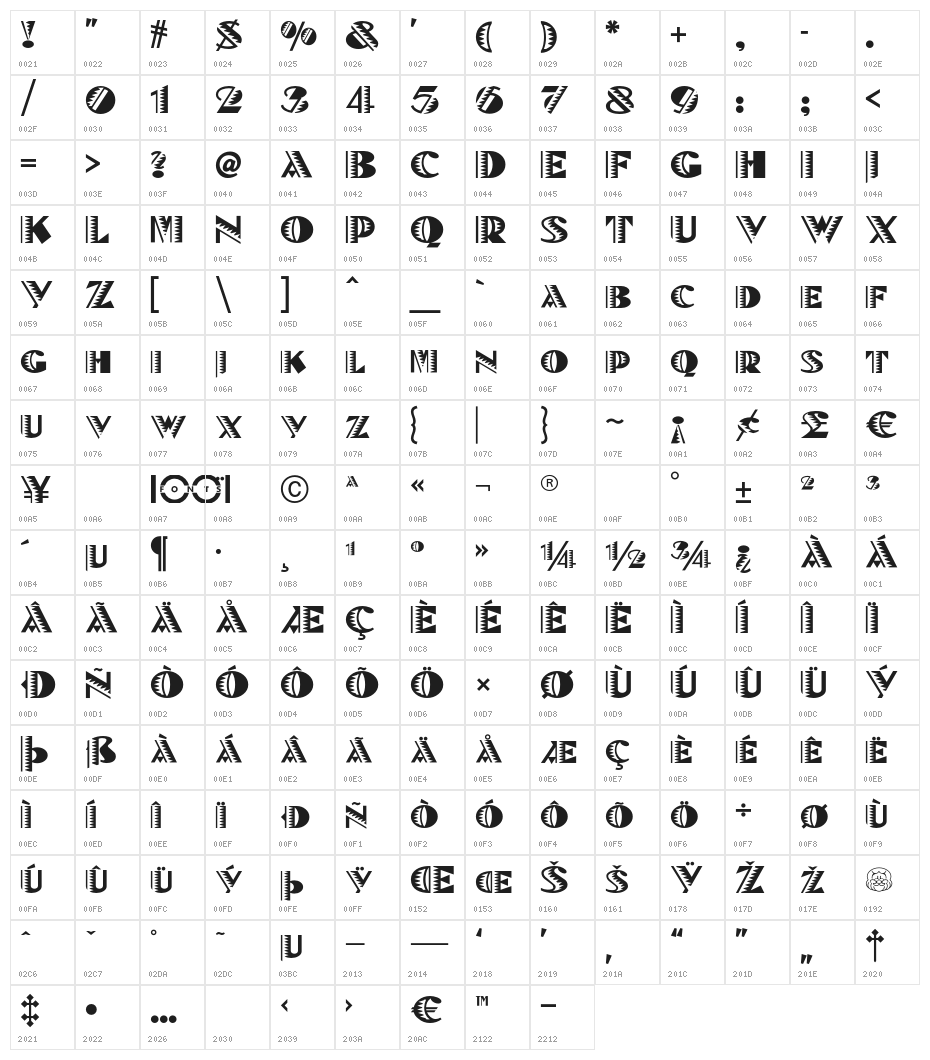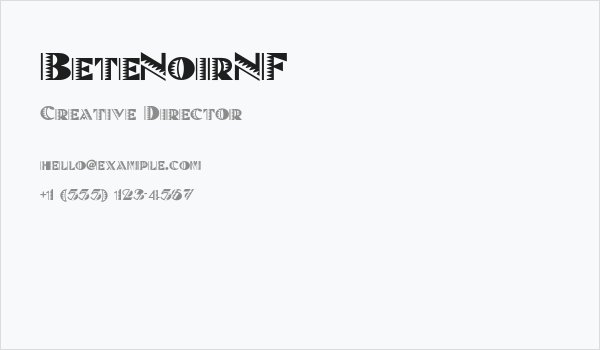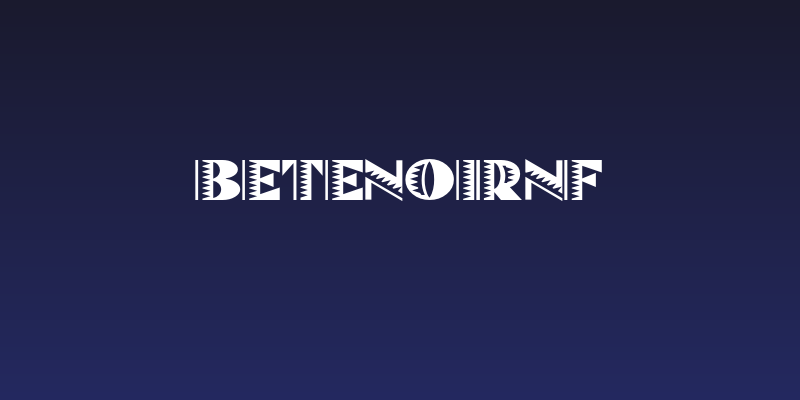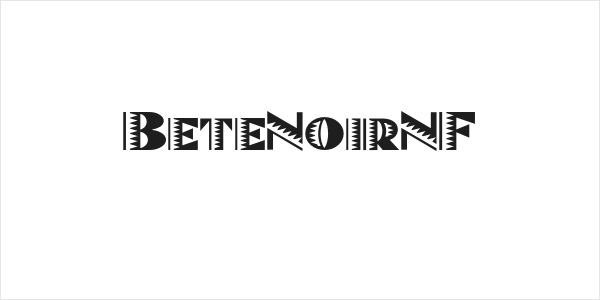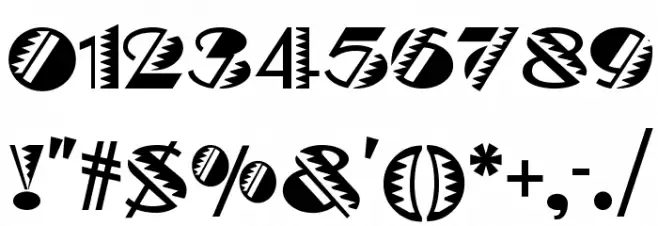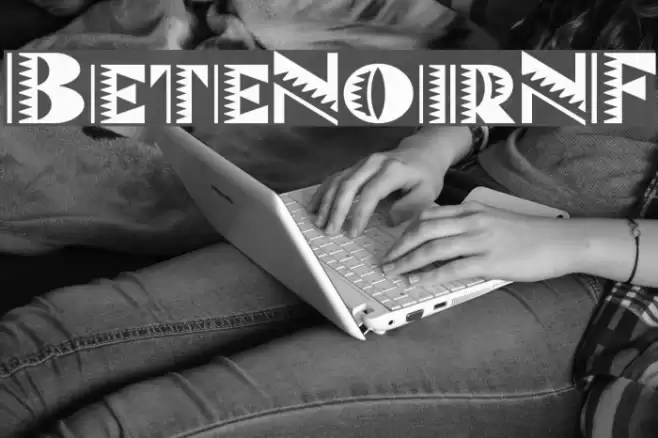
BeteNoirNF Font
BeteNoirNF Description
This font features a bold and striking design with a unique, decorative style. Each character is crafted with sharp, angular elements that create a dynamic and edgy appearance. The letters are bold and have a strong presence, making them ideal for attention-grabbing headlines or titles. The design incorporates a mix of geometric shapes and patterns within each character, adding a layer of complexity and visual interest. The font's distinct style is reminiscent of art deco influences, with a modern twist that makes it suitable for contemporary design projects.